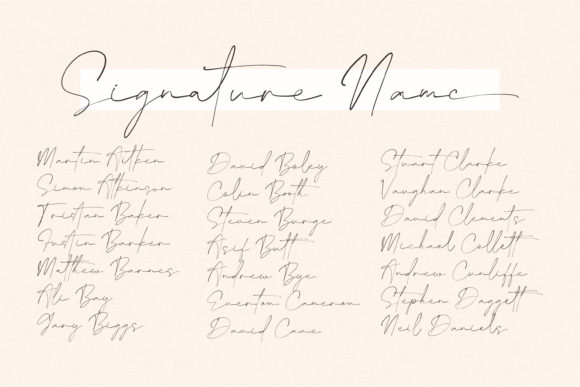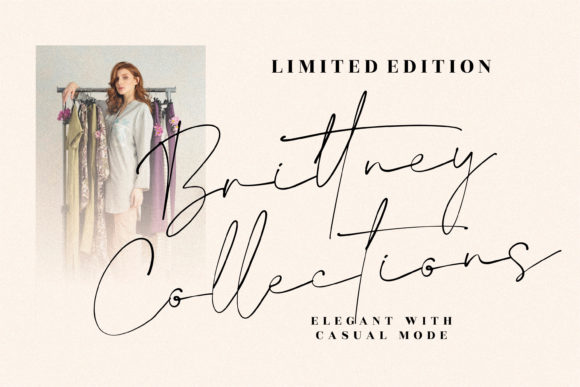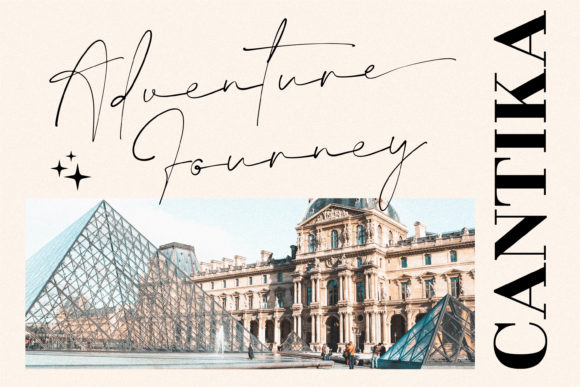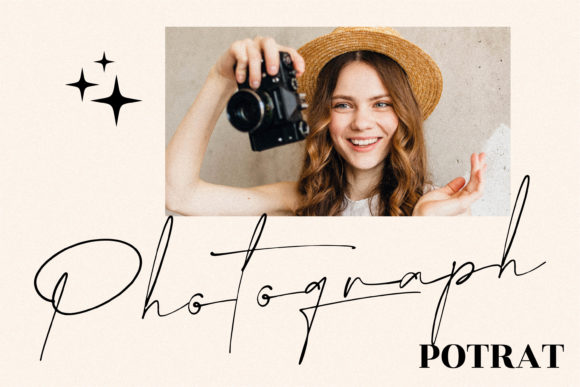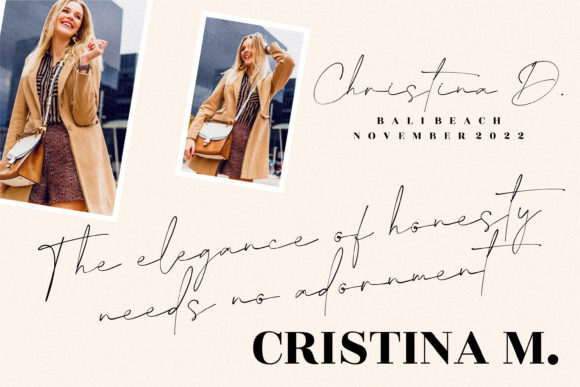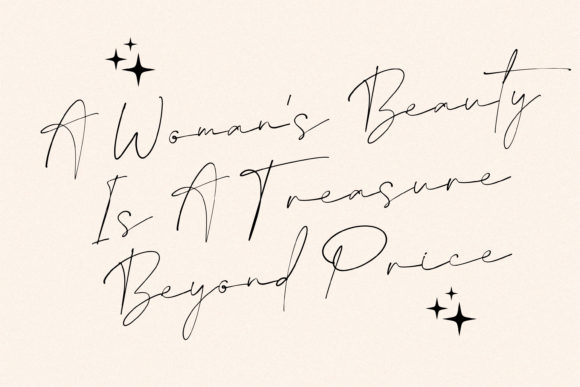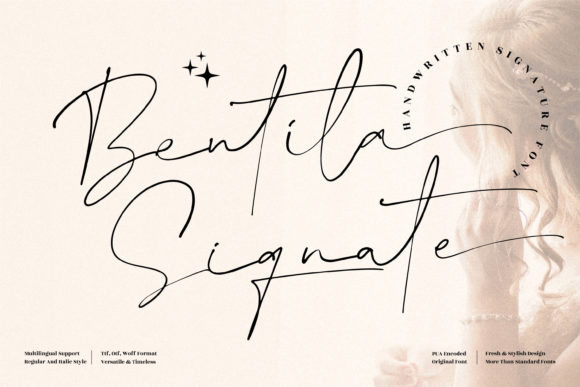
Bentila Signate Font: Elevate Your Creations with Delicate Whimsy
Are you a designer or crafter looking for a unique and stylish font to elevate your creations? Look no further than Bentila Signate, a delicate, whimsical, and uniquely shaped handwritten font. With its trendy and stylish aesthetic, Bentila Signate is the perfect addition to any project, from digital designs to handmade crafts.
What Makes Bentila Signate Special?
Bentila Signate is more than just a font – it’s an experience. Its delicate and whimsical design makes it perfect for projects that require a touch of elegance and sophistication. The font’s unique shape and style will add a level of personality to your creations, setting them apart from the ordinary.
One of the standout features of Bentila Signate is its PUA (Private Use Area) encoding. This means that you can access all of the glyphs and swashes with ease, giving you complete creative control over your project. Whether you’re a seasoned designer or a crafty hobbyist, Bentila Signate’s PUA encoding makes it easy to get the look you want.
Bentila Signate is a versatile font that is perfect for a wide range of projects. Designers will love using it for:
- Digital designs, such as social media graphics and blog posts
- Print designs, such as brochures and business cards
- Web design, including website headers and footers
Crafters will also adore Bentila Signate for:
- Handmade cards and invitations
- Journaling and scrapbooking
- DIY projects, such as signs and decorations
Why Choose Bentila Signate?
With so many fonts to choose from, why should you choose Bentila Signate? Here are just a few reasons:
- Unique and stylish design: Bentila Signate’s delicate and whimsical design makes it stand out from the crowd.
- PUA encoded: Easily access all glyphs and swashes for complete creative control.
- Versatile: Perfect for a wide range of projects, from digital designs to handmade crafts.
- Easy to use: Whether you’re a seasoned designer or a crafty hobbyist, Bentila Signate is easy to use and incorporate into your projects.
Get Creative with Bentila Signate